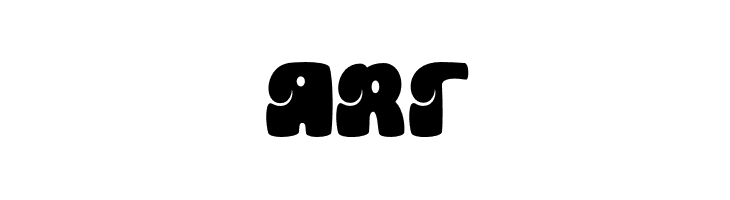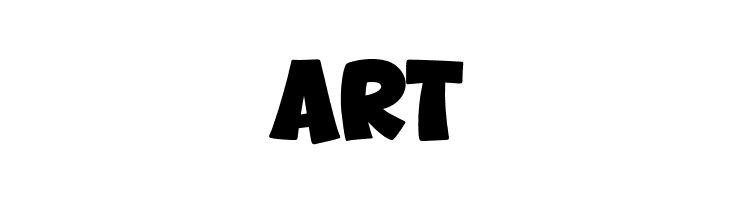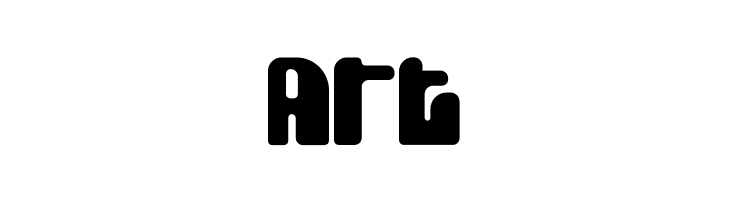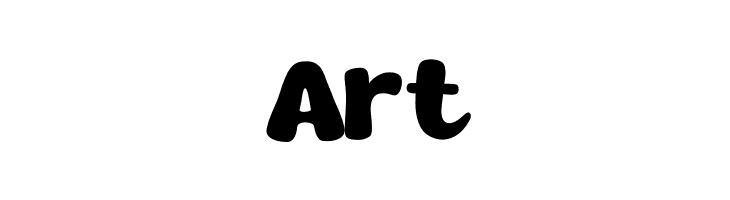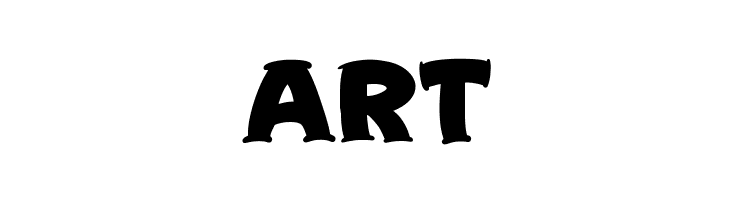
A playful, bold font with rounded characters and a 3D shadow effect.
A bold, playful font with rounded edges and a retro-modern vibe.
A bold, playful font with a cartoonish style and unique heart-shaped details.
A bold, playful font with thick, rounded shapes and a whimsical style.
A bold, playful font with rounded edges and a modern retro style.
A bold, rounded, and playful font with a vintage flair.
A bold, playful font with rounded, bubbly characters and a hand-drawn feel.
A bold, rounded font with a playful and dynamic style.
A bold, blocky font with a playful, graffiti-inspired style.
A playful, bold 3D font with a cartoonish style and strong shadow effect.